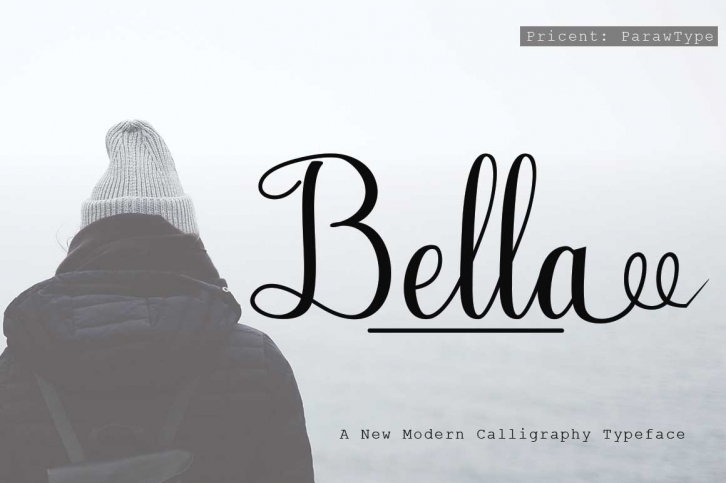
Bella is a trendy and unique font with an authentic style. It was designed by HerDesign and it's a great choice for creative people who need such a font. It was released on June 21, 2019 and the file size is 6.99 MB. Bella will add an organic vibe to any design idea!